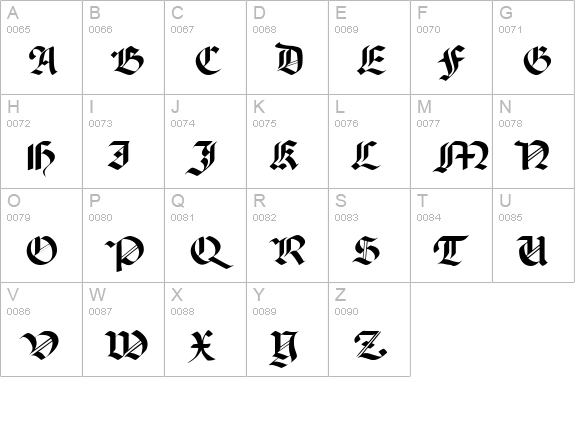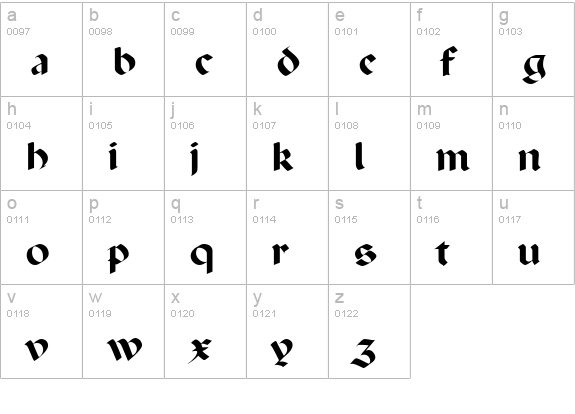
P650-Blackletter-Regular Font Details
P650-Blackletter-Regular is the standard, neutral variant in the P650 typeface family \xE2\x80\x94 well suited to general body text, paragraphs, and standard typographic work.
Immerse yourself in the timeless elegance of P650-Blackletter-Regular font, a stunning typeface that effortlessly combines traditional blackletter elements with a modern twist. This exquisite font features intricate details and ornate embellishments that exude sophistication and charm. Embracing a classic aesthetic with a contemporary touch, P650-Blackletter-Regular font is perfect for various design projects, from invitations and posters to branding and signage. Its bold and striking appearance commands attention and adds a touch of grandeur to any composition. Best of all, P650-Blackletter-Regular font is available for free download at FontsMarket.com, making it easily accessible for designers and enthusiasts alike. Elevate your designs with this exceptional font and infuse them with a touch of historical charm and elegance.